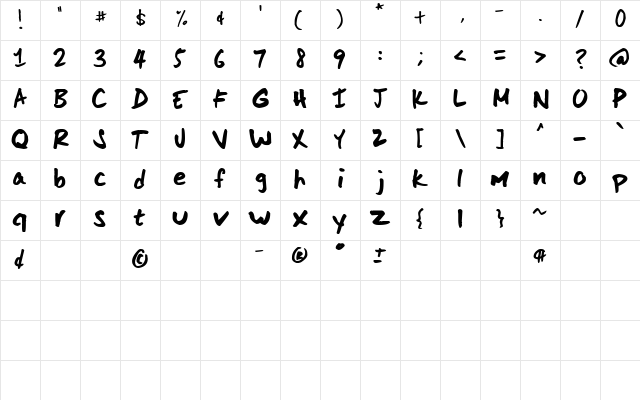
Scoder Hand flows with the natural rhythm of handwritten lettering, making it ideal for designs that call for warmth and personal expression.
Font Pairing: Combine Scoder Hand with a simple geometric sans for maximum contrast - the tension between flowing curves and clean structure is a classic typographic pairing.
Pro Tip: Use Scoder Hand for short runs of text - names, titles, or taglines. Extended body copy in script faces tires the eye quickly.